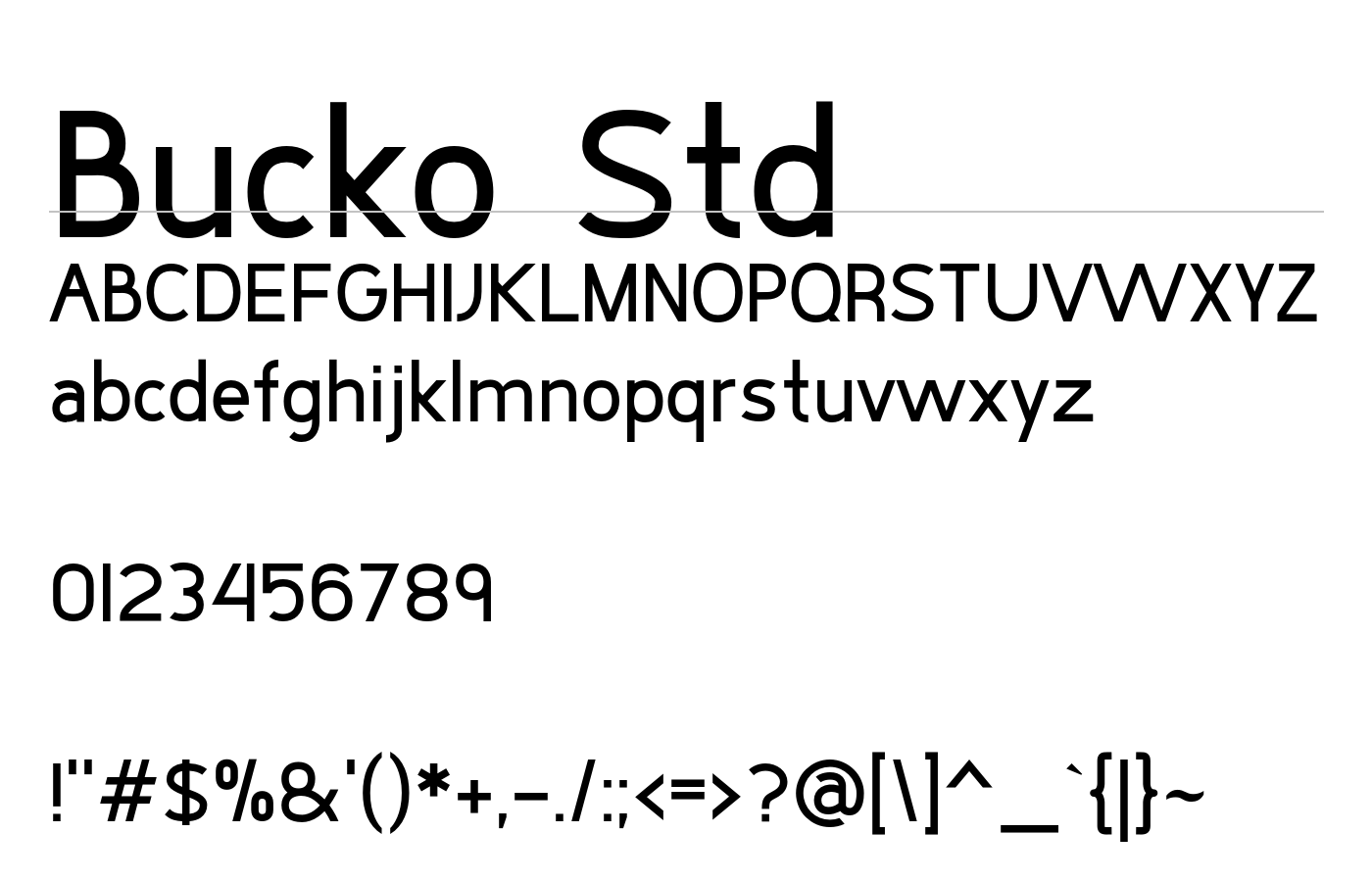
Bucko Std is a clean and modern sans serif font characterized by its medium weight and slightly condensed, geometric letterforms. It features a uniform stroke with moderate contrast, a high x-height for good readability, and distinctive single-story characters that give it a contemporary yet approachable feel. This versatile font works well in branding, editorial design, and digital interfaces where clarity and a modern aesthetic are key.
Bucko Std Font
About Bucko Std Font